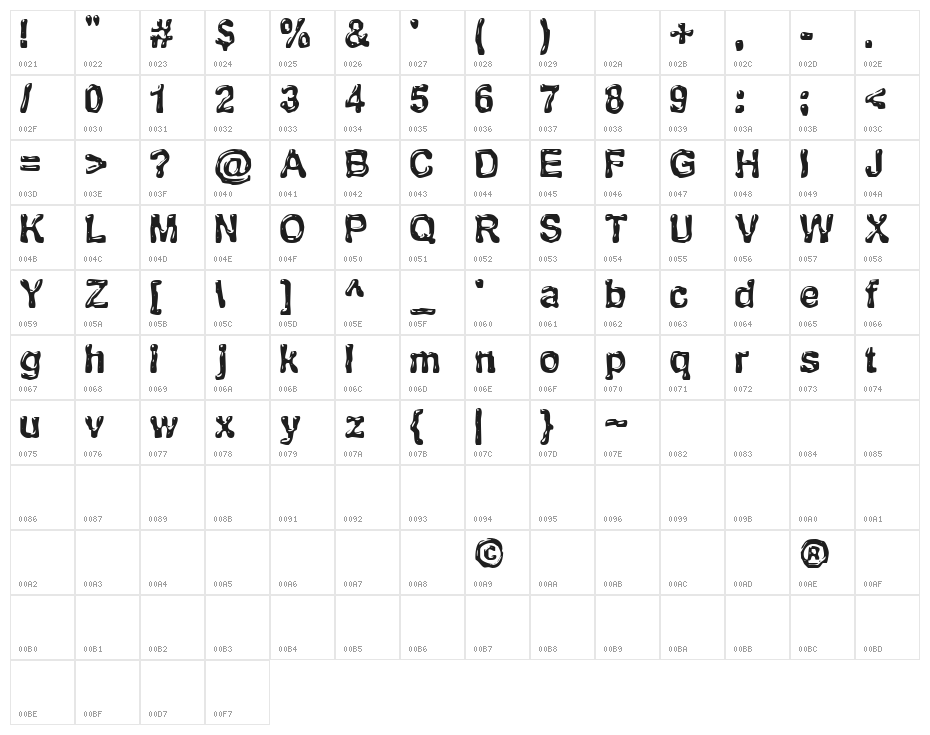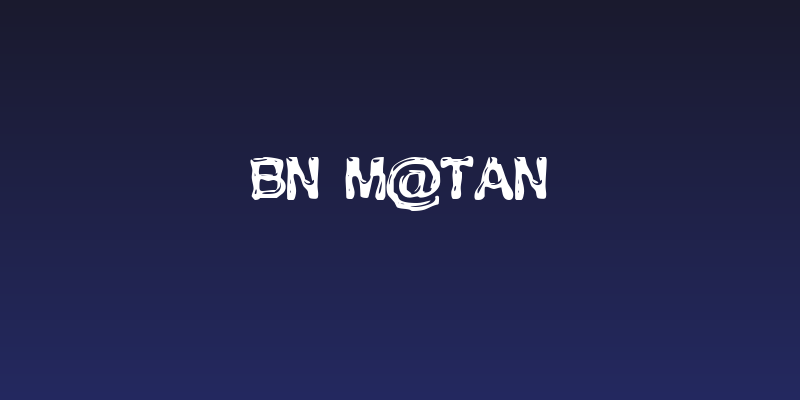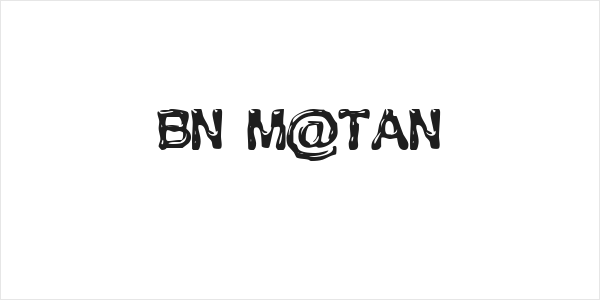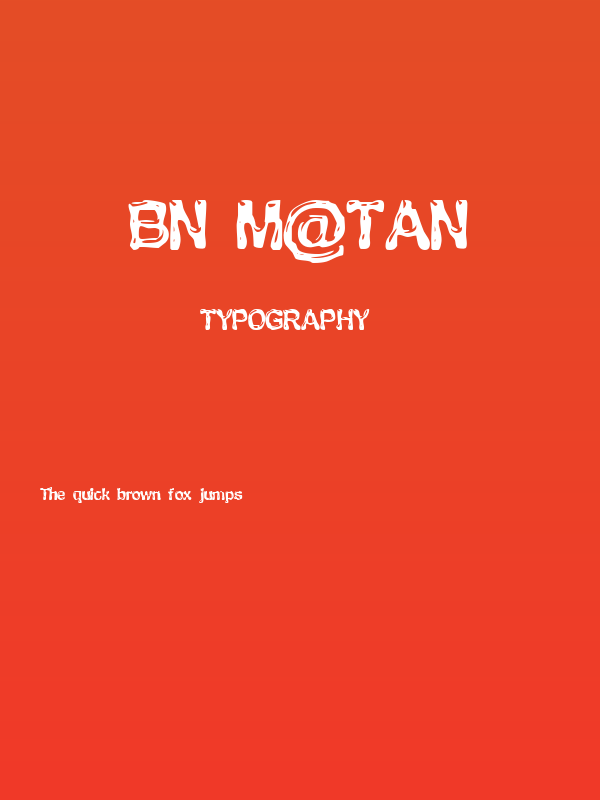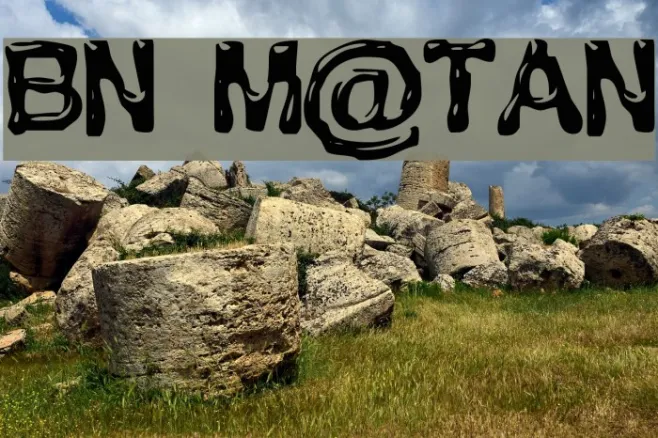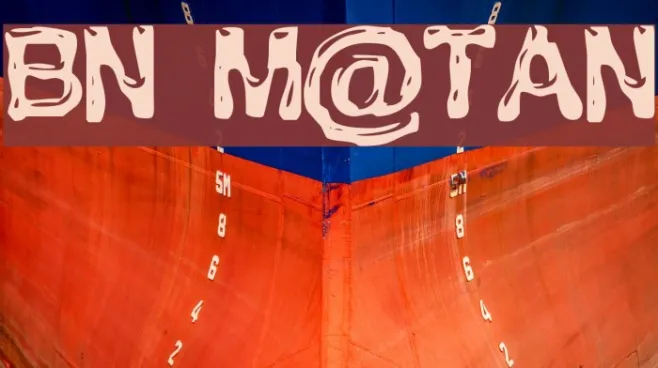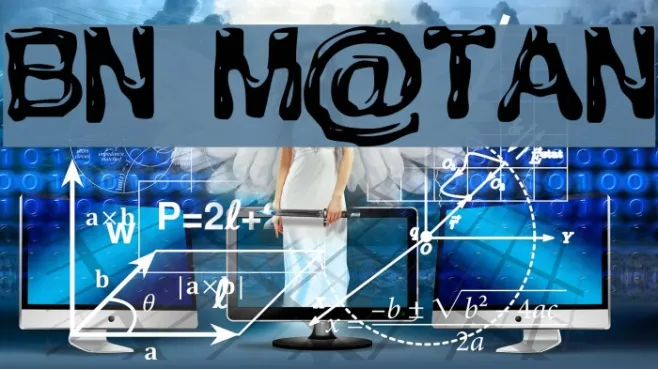
BN M@TAN Font
BN M@TAN Description
This font exhibits a bold and dynamic style, characterized by its fluid, organic shapes that resemble liquid or dripping paint. The letters have a playful and artistic appearance, with irregular edges and varying stroke thicknesses that create a sense of movement and energy. The uppercase and lowercase letters maintain a consistent style, while the numerals and special characters complement the overall design. This font is visually striking and captures attention with its unique and unconventional aesthetic.
| Proposed Projects | Ideal for creative projects such as posters, album covers, event flyers, and branding for artistic or unconventional businesses. |